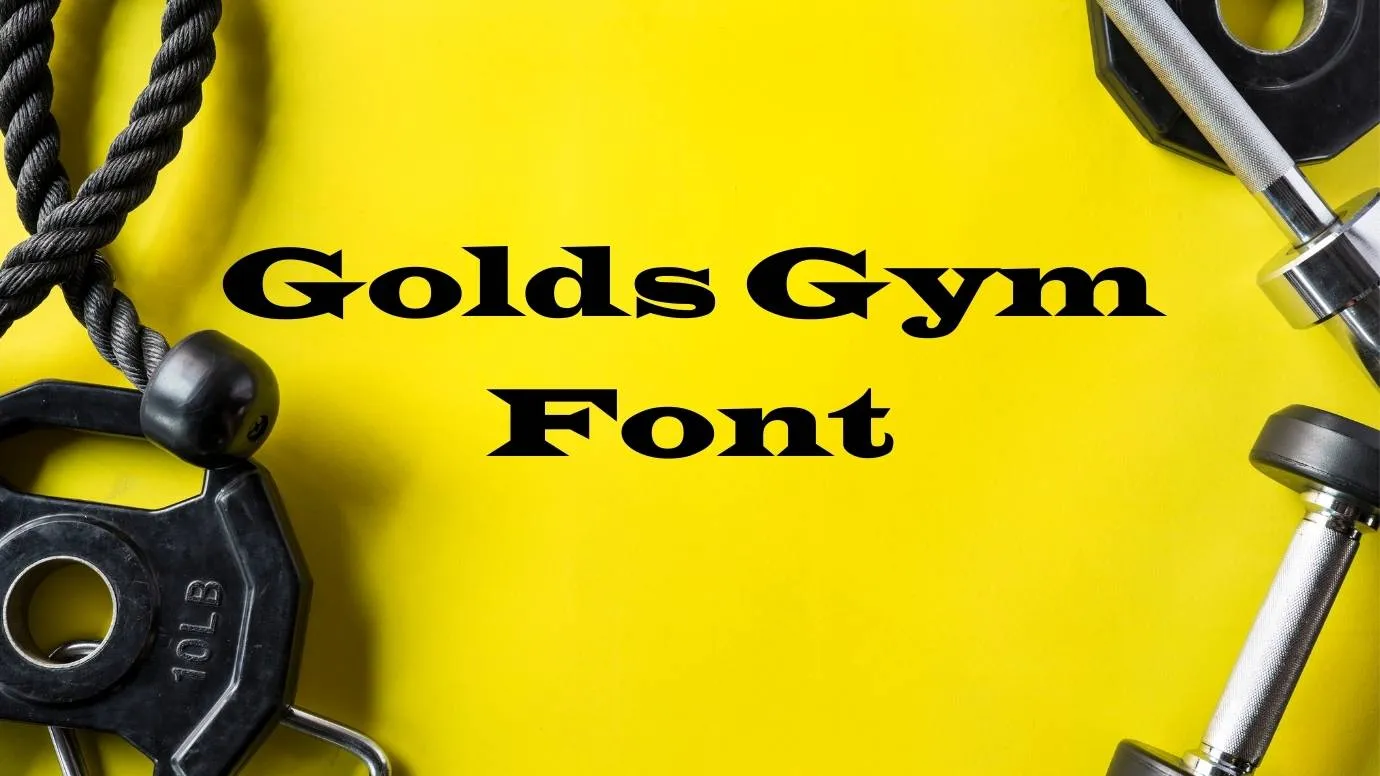
Gold’s Gym Font Family is basically designed based on an American Fitness Centre Headquarters logo that’s why it belongs to the logo typeface. It was designed by a brilliant typographic designer named Ricardo Peres.
This typeface looks like a serif typeface and Latin Wide Font is used for the creation of this font that also belongs serif category. If you are looking for a bold and stylish typeface, you can choose this fantastic typeface for your projects and other related purposes.
| Name | Gold's Gym Font |
| Type | Logo |
| Designer | Ricardo Peres |